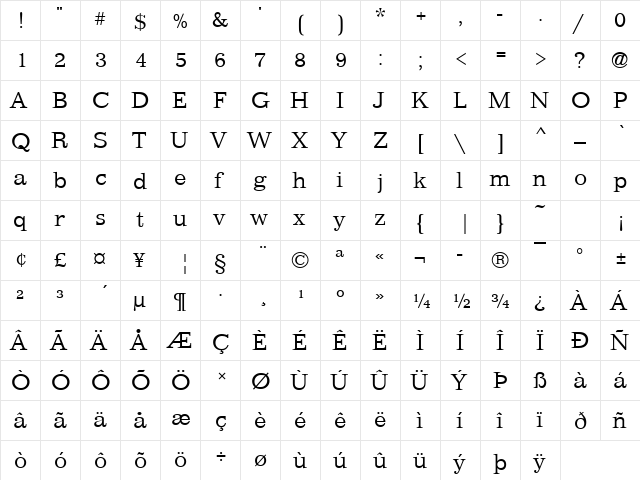
Mariam Becker Light Regular
Design Context for Mariam Becker Light Typeface
Mariam Becker Light takes a measured approach to typography — its balanced proportions and neutral character make it a reliable workhorse for both digital and print work. Its slender proportions lend an understated elegance to any composition.